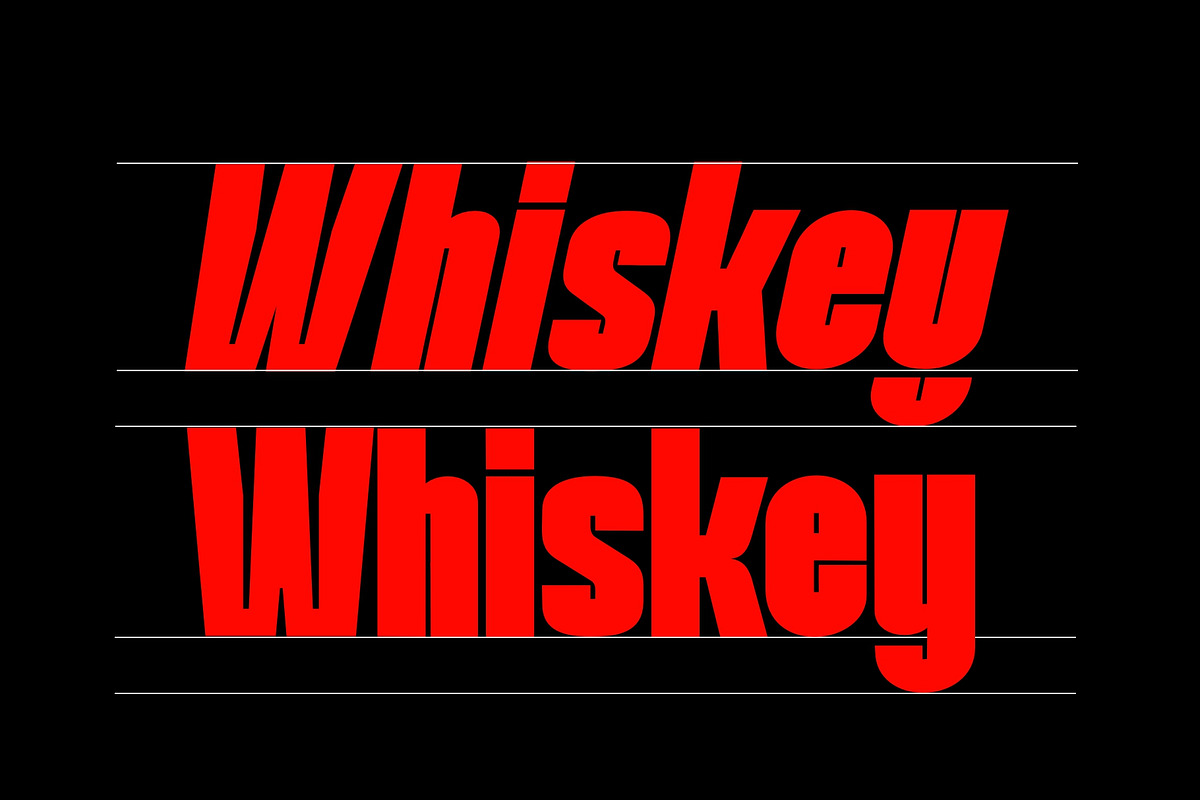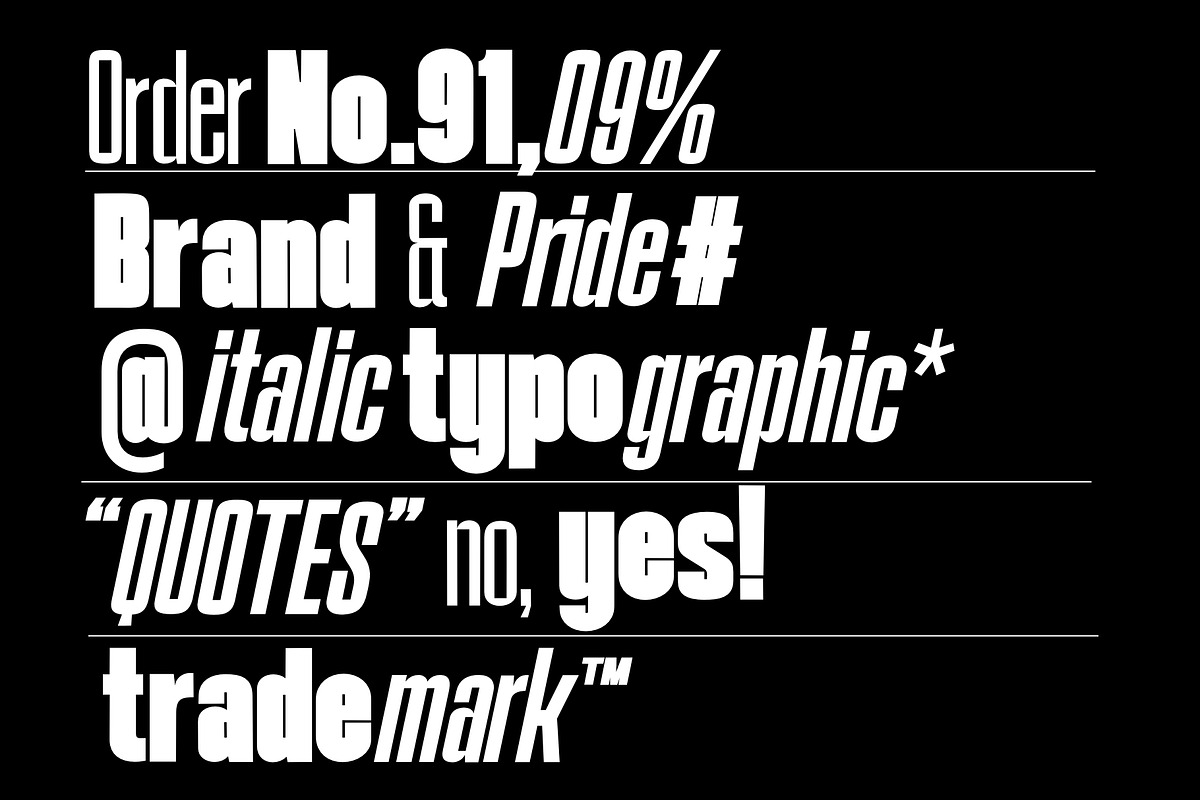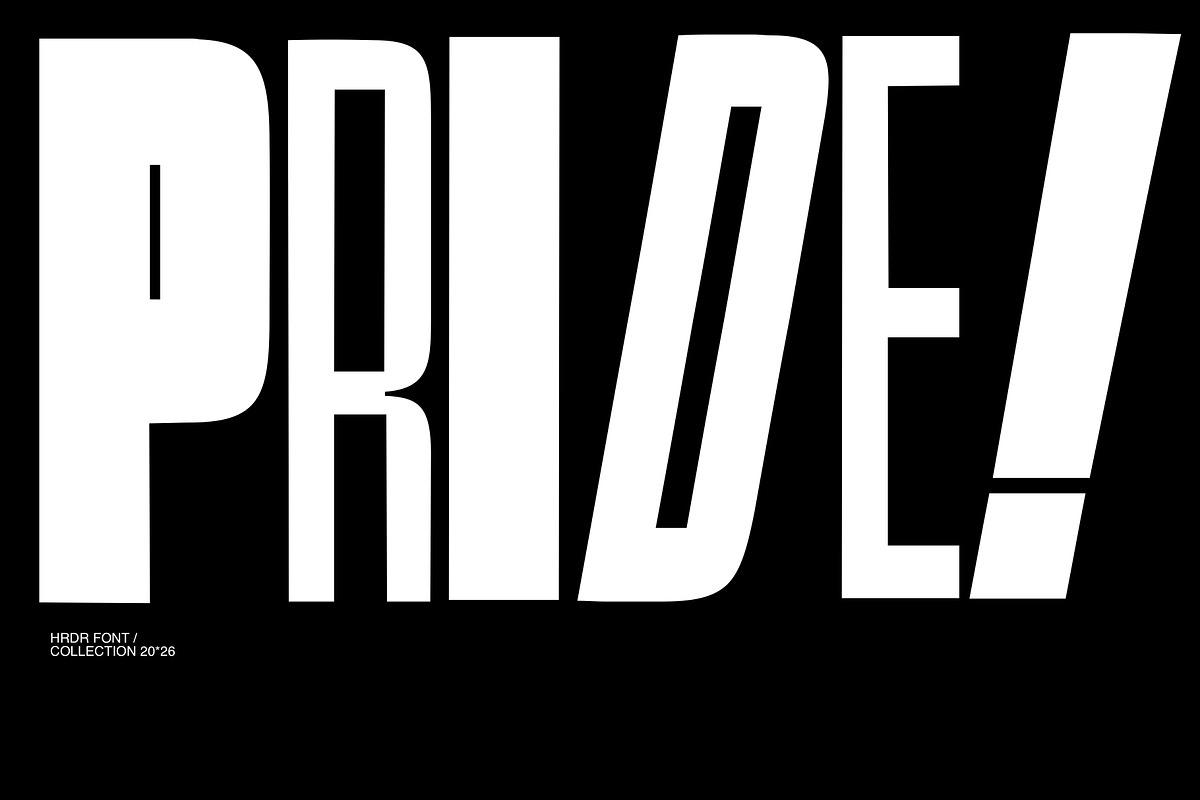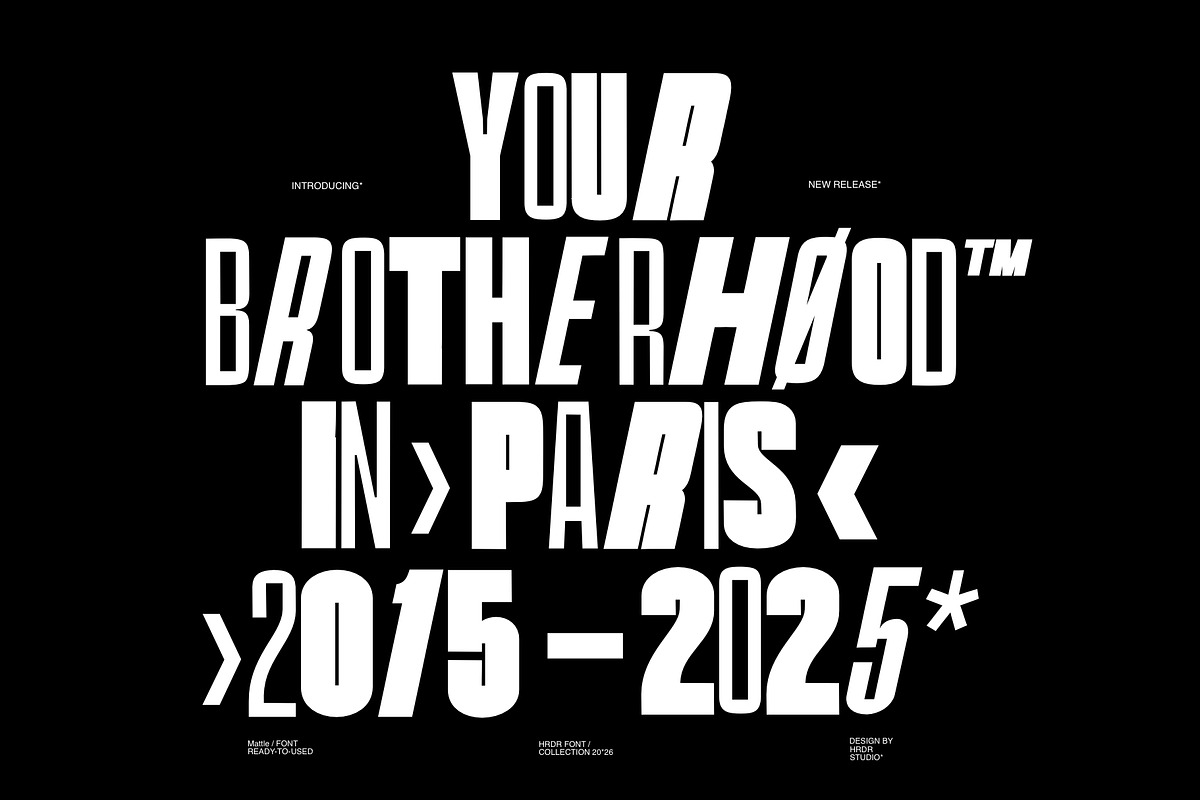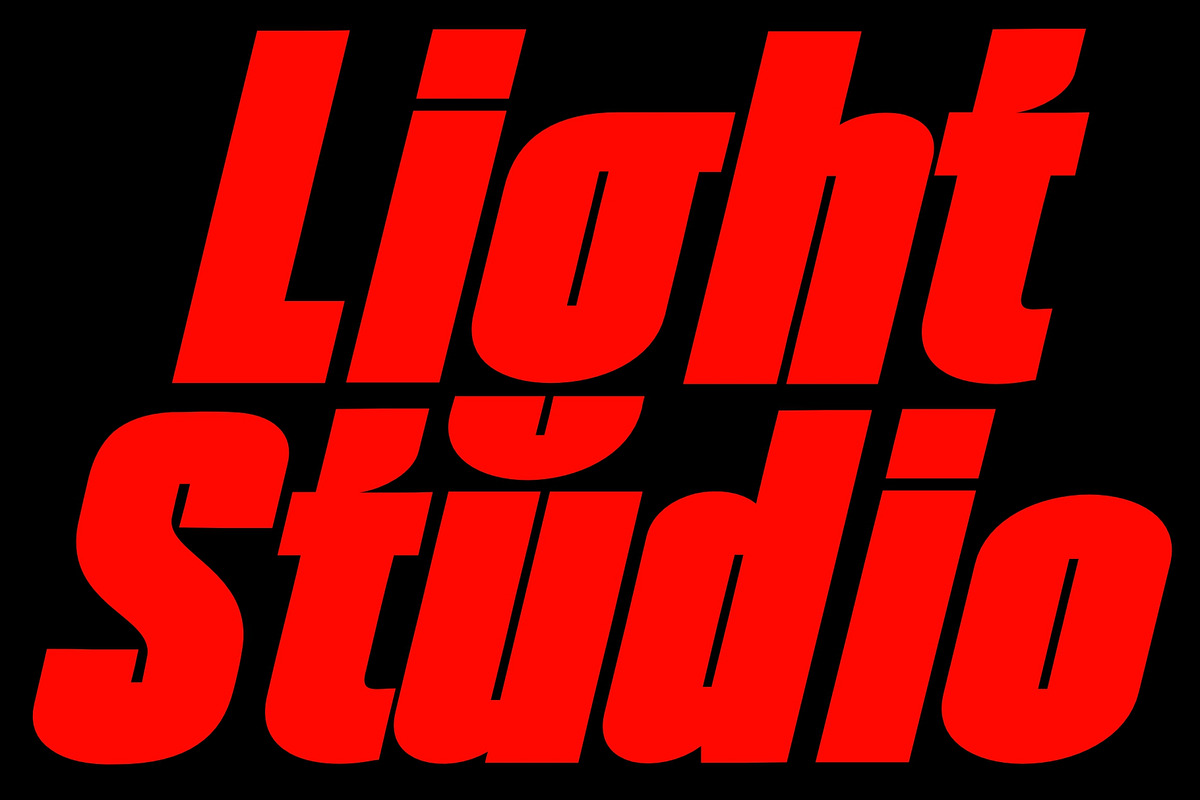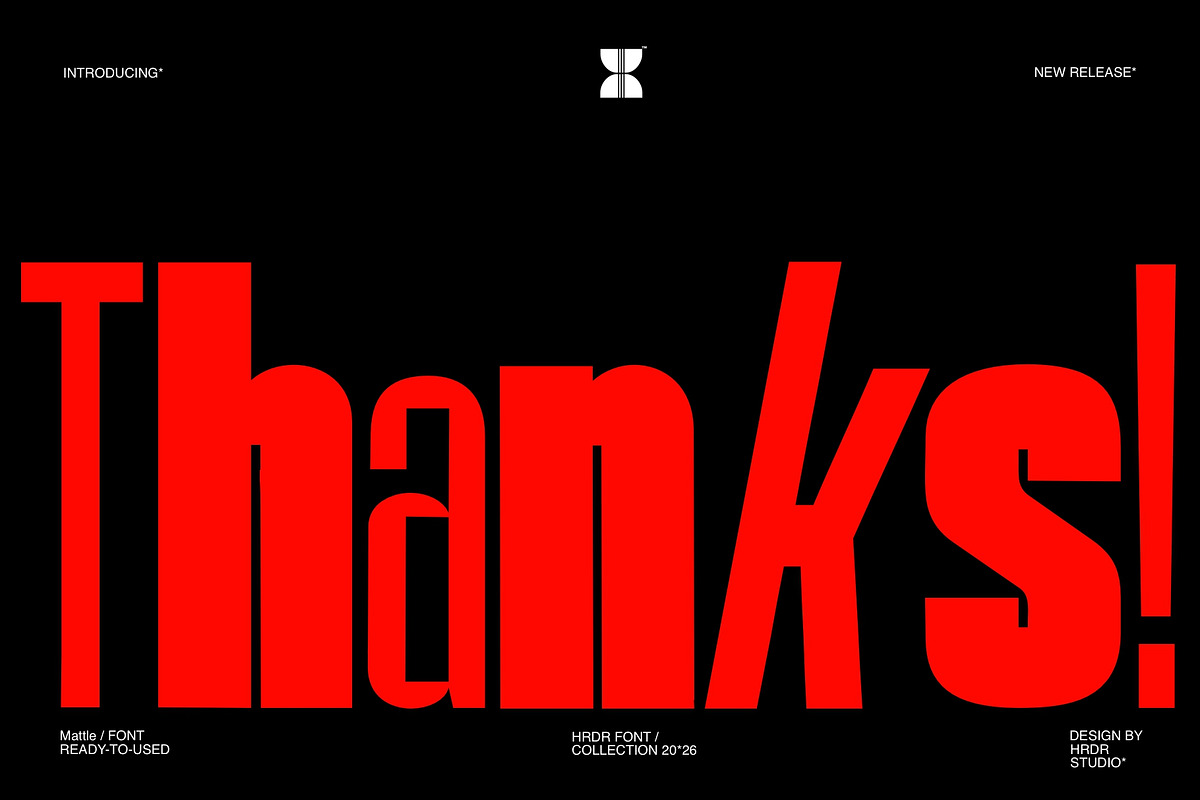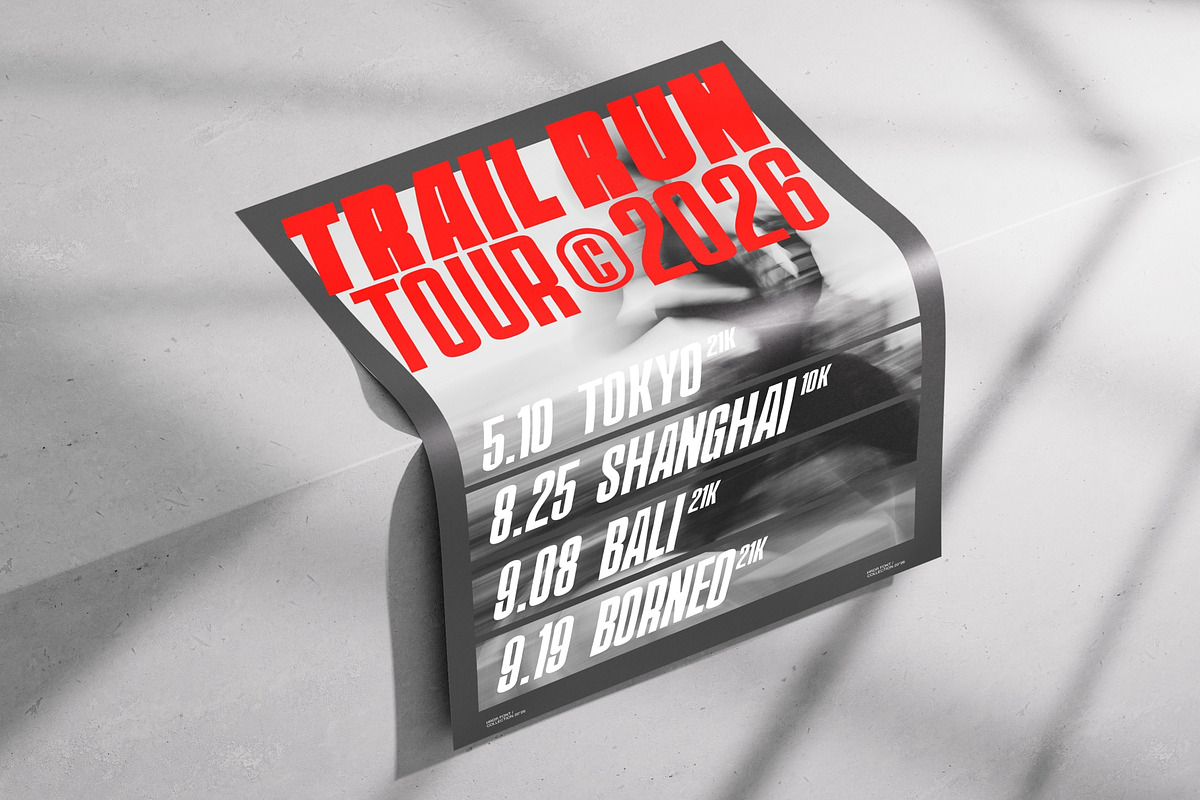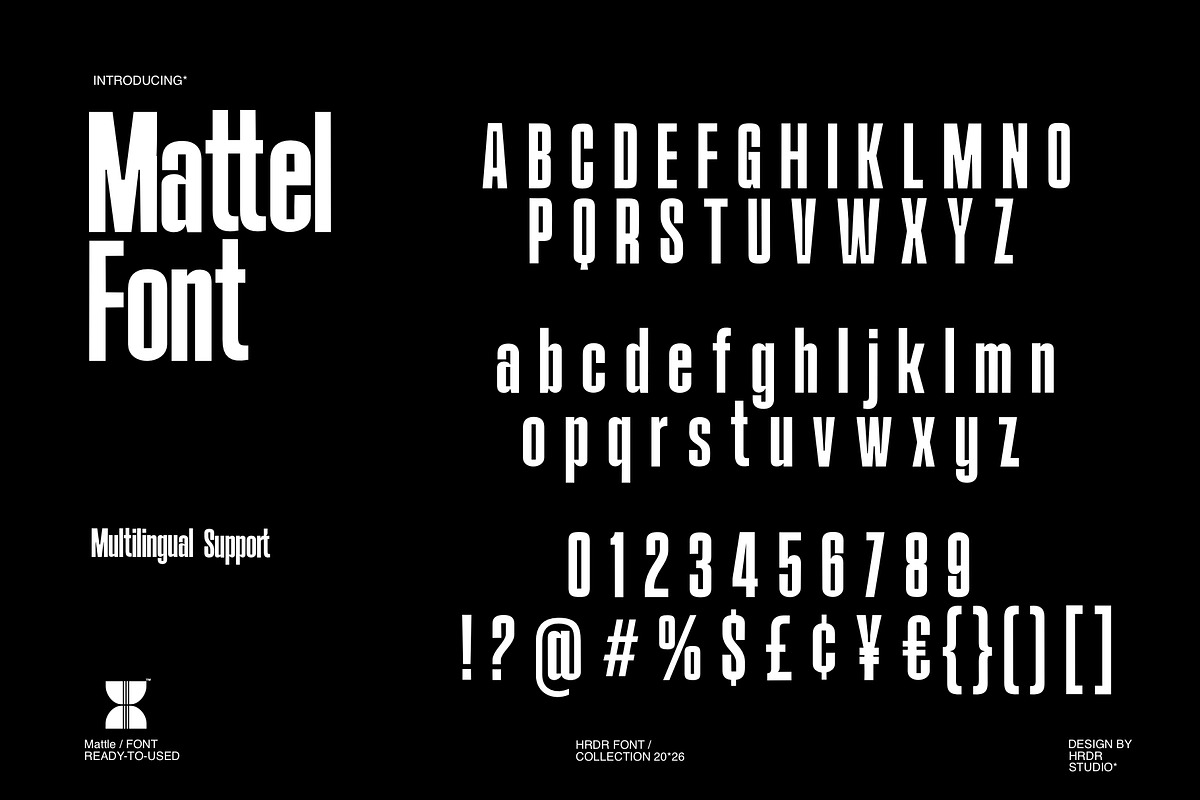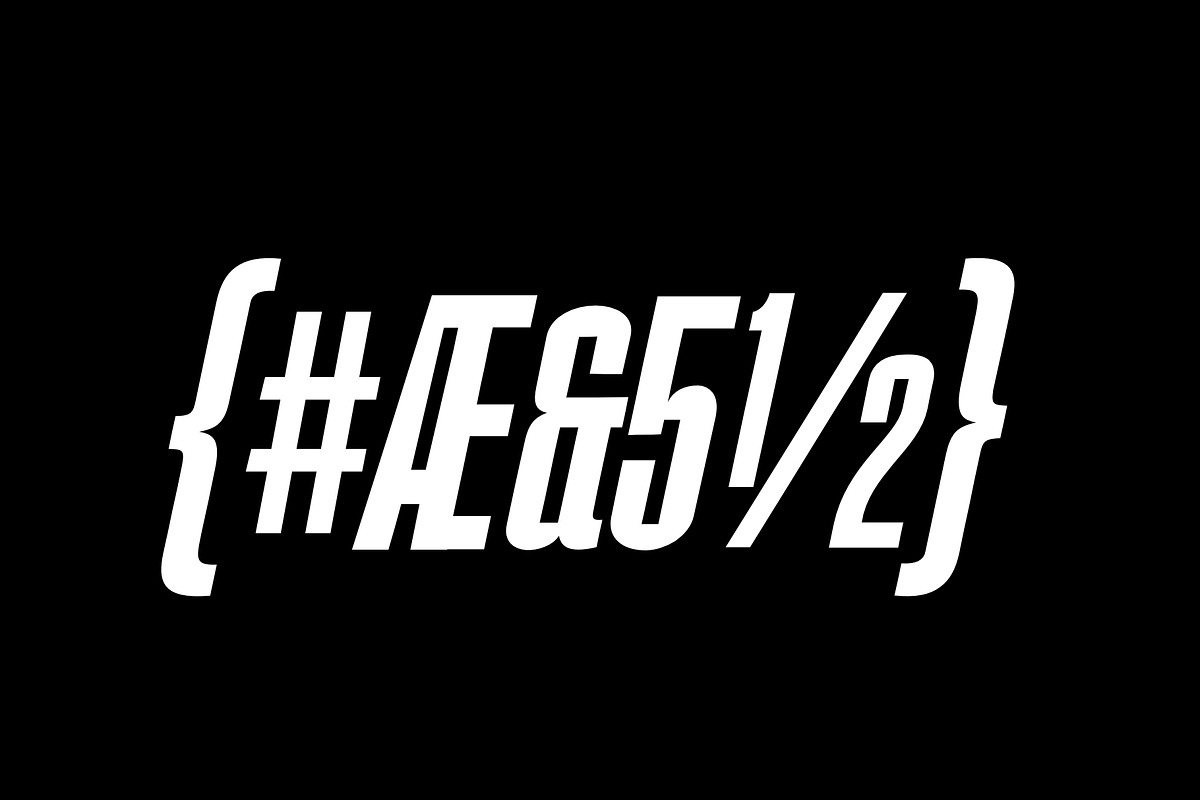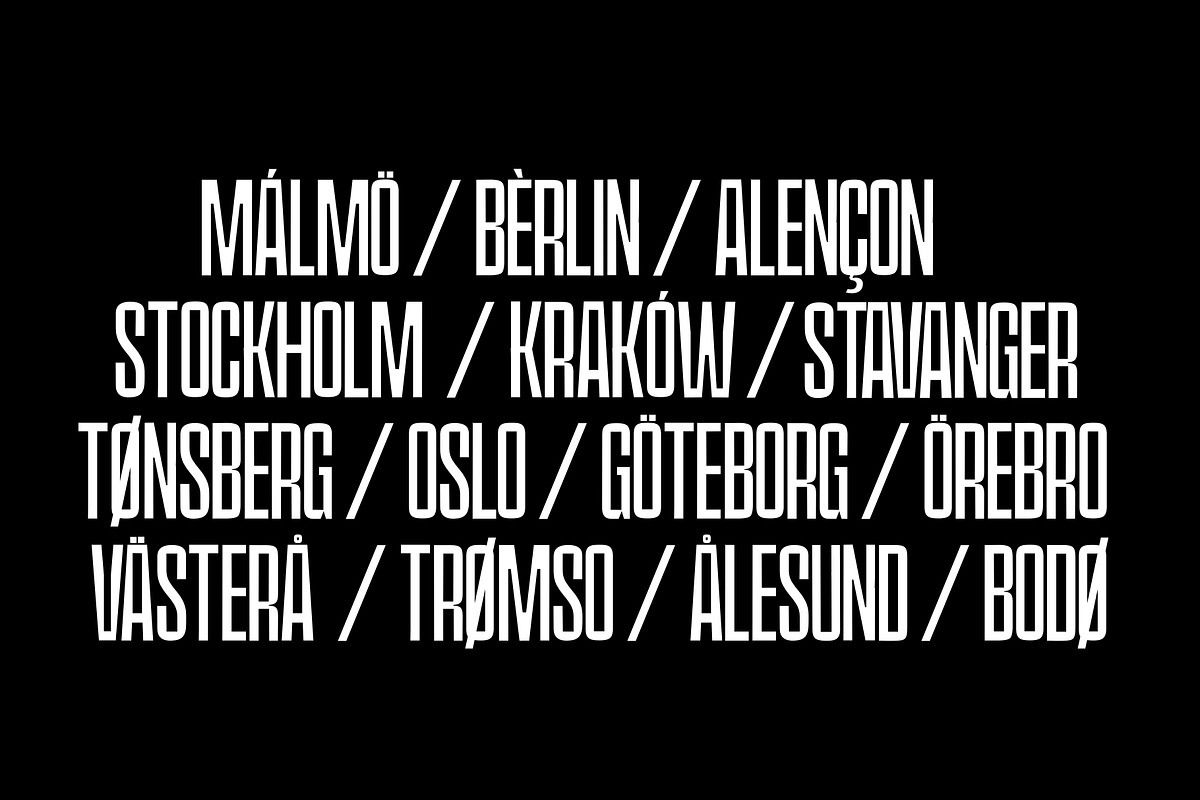
Mattel
Embrace a contemporary aesthetic with Mattel, a versatile type style ideal for logos, branding, film production, and more. Designed as a variable font, it offers five distinct widths, allowing extensive creative flexibility for any project.
With Mattel, achieve an elegant yet strong visual identity suitable for various applications, from motion graphics to packaging.
- Numerical and multilingual support
- Stylistic Alternates With Ss01
- Standard ligatures